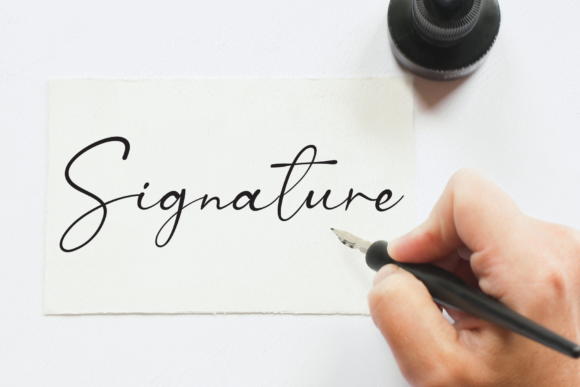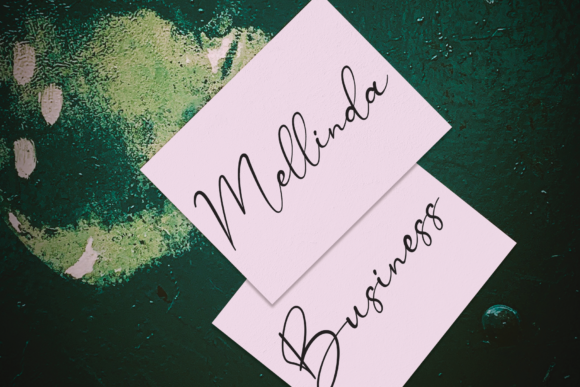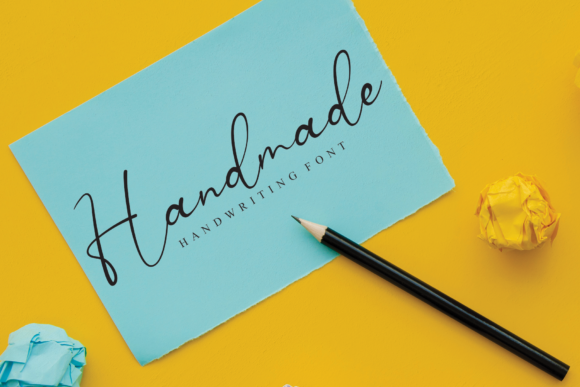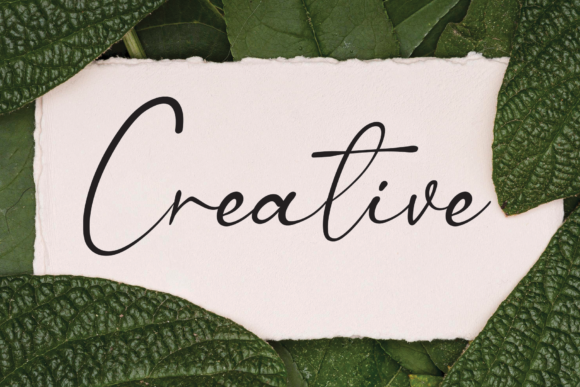
Introducing Farmhouse Christmas Font: A Romantic and Sweet Calligraphy Typeface
Are you looking for a font that captures the essence of the holiday season? Do you want to add a touch of elegance and whimsy to your designs? Look no further than Farmhouse Christmas Font, a beautiful calligraphy typeface that’s perfect for creating romantic and sweet holiday-themed projects.
What is Farmhouse Christmas Font?
Farmhouse Christmas Font is a stunning calligraphy typeface that’s designed to evoke the feeling of a rustic, countryside Christmas. With its characters that dance along the baseline, this font has a casual, yet elegant touch that’s sure to capture the hearts of designers and crafters alike.
Key Features of Farmhouse Christmas Font
- Romantic and Sweet: Farmhouse Christmas Font is a romantic and sweet calligraphy typeface that’s perfect for creating holiday-themed projects that exude warmth and coziness.
- Casual yet Elegant: This font has a casual, yet elegant touch that’s perfect for creating designs that are both rustic and refined.
- Versatile: Farmhouse Christmas Font can be used for a wide range of purposes, including logos, wedding invitations, headings, t-shirts, letterhead, signage, labels, news, posters, badges, and more.
- Easy to Read: Despite its ornate and decorative nature, Farmhouse Christmas Font is easy to read, making it perfect for creating designs that need to be both visually appealing and legible.
Uses for Farmhouse Christmas Font
Farmhouse Christmas Font is an incredibly versatile typeface that can be used for a wide range of design projects. Here are some ideas to get you started:
- Holiday Cards and Invitations: Use Farmhouse Christmas Font to create beautiful holiday cards and invitations that are sure to impress your friends and family.
- Wedding Decor: This font is perfect for creating romantic wedding decor, including wedding invitations, place cards, and signage.
- Branding and Packaging: Farmhouse Christmas Font can be used to create stunning branding and packaging designs that are sure to stand out.
- Signage and Posters: Use this font to create eye-catching signage and posters that are perfect for advertising holiday events or promotions.
- T-Shirts and Merchandise: Farmhouse Christmas Font can be used to create beautiful t-shirts and merchandise that make perfect gifts or promotional items.
Tips for Using Farmhouse Christmas Font
Here are some tips for using Farmhouse Christmas Font in your designs:
- Pair with Simple Backgrounds: To really make Farmhouse Christmas Font shine, pair it with simple backgrounds that won’t compete with the font’s ornate and decorative nature.
- Use for Headlines and Titles: Farmhouse Christmas Font is perfect for creating eye-catching headlines and titles that are sure to grab attention.
- Add Decorative Elements: Consider adding decorative elements, such as holly or snowflakes, to really make your designs pop.
Farmhouse Christmas Font is a beautiful and versatile calligraphy typeface that’s perfect for creating romantic and sweet holiday-themed designs. With its casual, yet elegant touch and endless uses, this font is sure to become a favorite among designers and crafters alike. So why wait? Download Farmhouse Christmas Font today and start creating stunning holiday designs that are sure to impress!